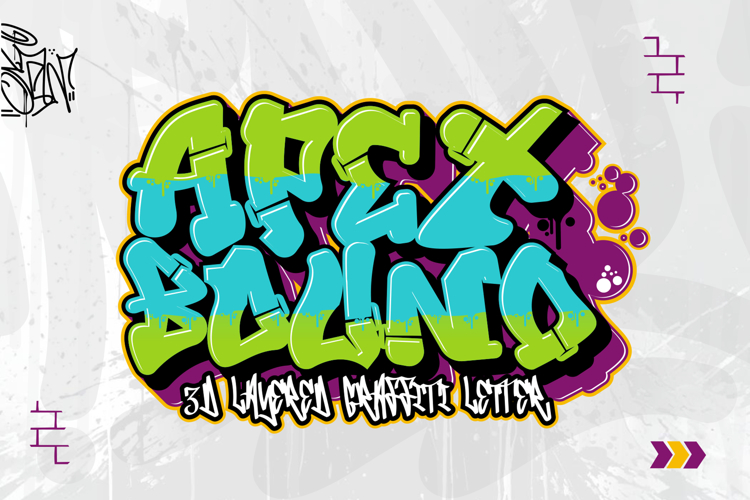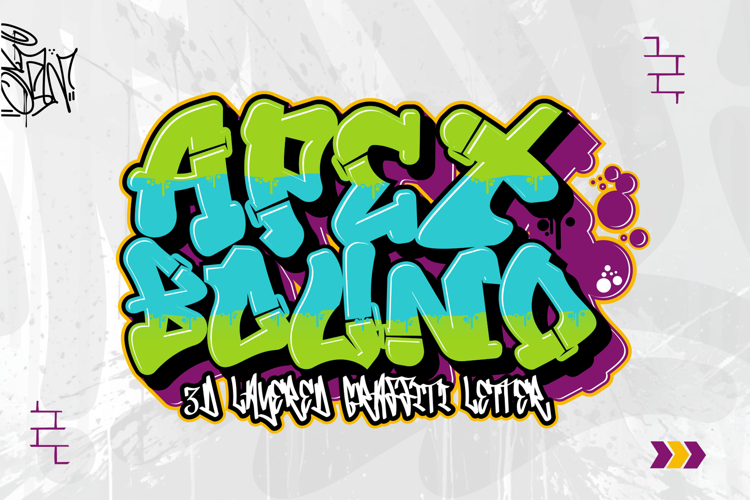
Apex Bound - 3d Layered WIld Graffiti Font
Apex Bound is a versatile and dynamic 3D layered graffiti font with multiple styles, allowing for various visual effects. It includes a solid style, which serves as the bold base layer, providing a strong and filled appearance for the letters. The outline style creates a sharp and clean contour around the edges of each character, adding definition and making the letters stand out. The inner shadow style enhances the dimensionality of the font by adding shadows inside the letterforms, giving a sense of depth and a more complex visual appeal. Lastly, the extrude style adds an extended 3D effect, making the letters appear as if projecting outward, giving them a sense of volume and structure. Together, these styles allow for the creation of rich, layered text designs that are perfect for graffiti, street art, and urban-inspired projects."